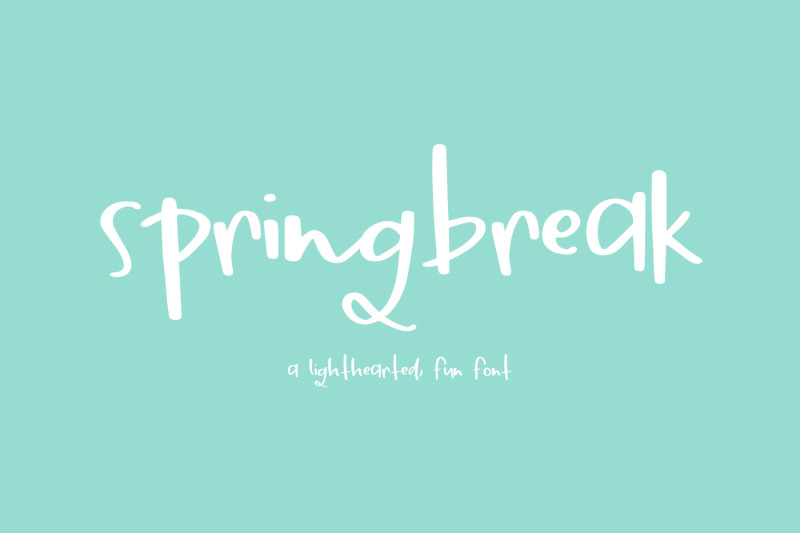
Spring Break Font
Spring Break Font is perfect for vacation marketing campaigns, beach resort branding, summer festival posters, tropical drink menus, travel agency advertisements, party invitations, youth-oriented social media graphics, seasonal promotions, outdoor event signage, and vibrant lifestyle branding.
What makes Spring Break Font so exciting is its infectious energy and carefree spirit that instantly captures the essence of vacation freedom and youthful adventure. This dynamic typeface features playful, energetic letterforms with bold strokes and vibrant character variations that immediately evoke feelings of sunshine, relaxation, and spontaneous fun. The font's upbeat design and celebratory aesthetic create an instant mood of excitement and escapism, making it ideal for projects that need to convey joy, liberation, and the ultimate vacation experience.
The Spring Break Font family typically includes various weights and decorative styles, often featuring regular, bold, and outline variations. Seasonal font collections frequently provide additional ornamental elements, shadow effects, and contextual alternates that enhance the festive atmosphere and allow designers to create more dynamic and eye-catching compositions.
The versatility of Spring Break Font makes it particularly effective for digital marketing campaigns, especially on social media platforms where capturing attention and conveying excitement are crucial for engagement. Tourism marketers and event planners will find this font exceptionally valuable for creating content that inspires wanderlust and drives bookings.
What distinguishes Spring Break Font is its ability to maintain readability while delivering maximum visual impact and emotional appeal. This balance makes it suitable for both headline applications and promotional text where maintaining audience interest is essential for conversion.
Professional designers appreciate that Spring Break Font brings an instant vacation mindset to projects across industries including travel, hospitality, entertainment, and lifestyle brands. Its energetic character and seasonal appeal make it indispensable for campaigns targeting adventure-seeking demographics.
The carefully crafted exuberance of Spring Break Font ensures consistent performance across various media, from digital advertisements to large-format outdoor signage.